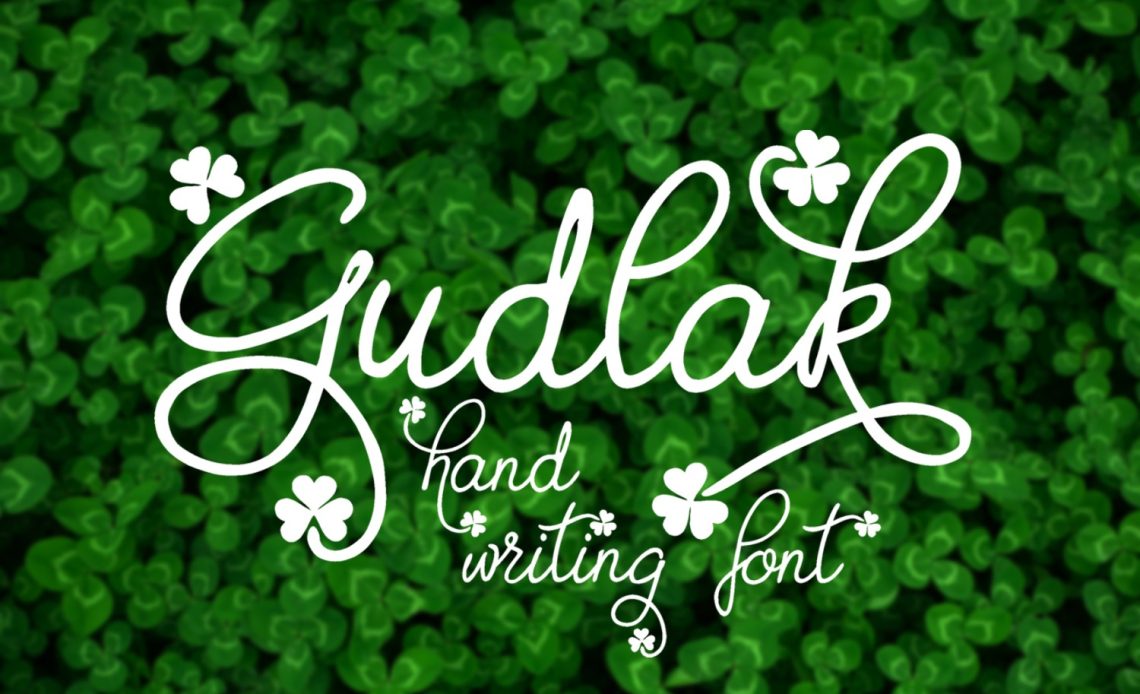
Looking for a fun and playful font for your St. Patrick's Day projects? Look no further than Gudlak Font, the latest addition to our script font family! Created by the talented Eva Barabasne Olasz, Gudlak Font features whimsical clover embellishments that will bring a touch of Irish luck to your designs.
But Gudlak Font isn't just for St. Patrick's Day - its monoline design gives it a clean and modern look that's perfect for a variety of projects. Whether you're creating invitations, posters, or social media graphics, Gudlak Font will help you stand out from the crowd.
With its bold and eye-catching letters, Gudlak Font is sure to capture the attention of your audience. And because it's a script font, it adds a personal touch to your designs that will make them feel more authentic and heartfelt.